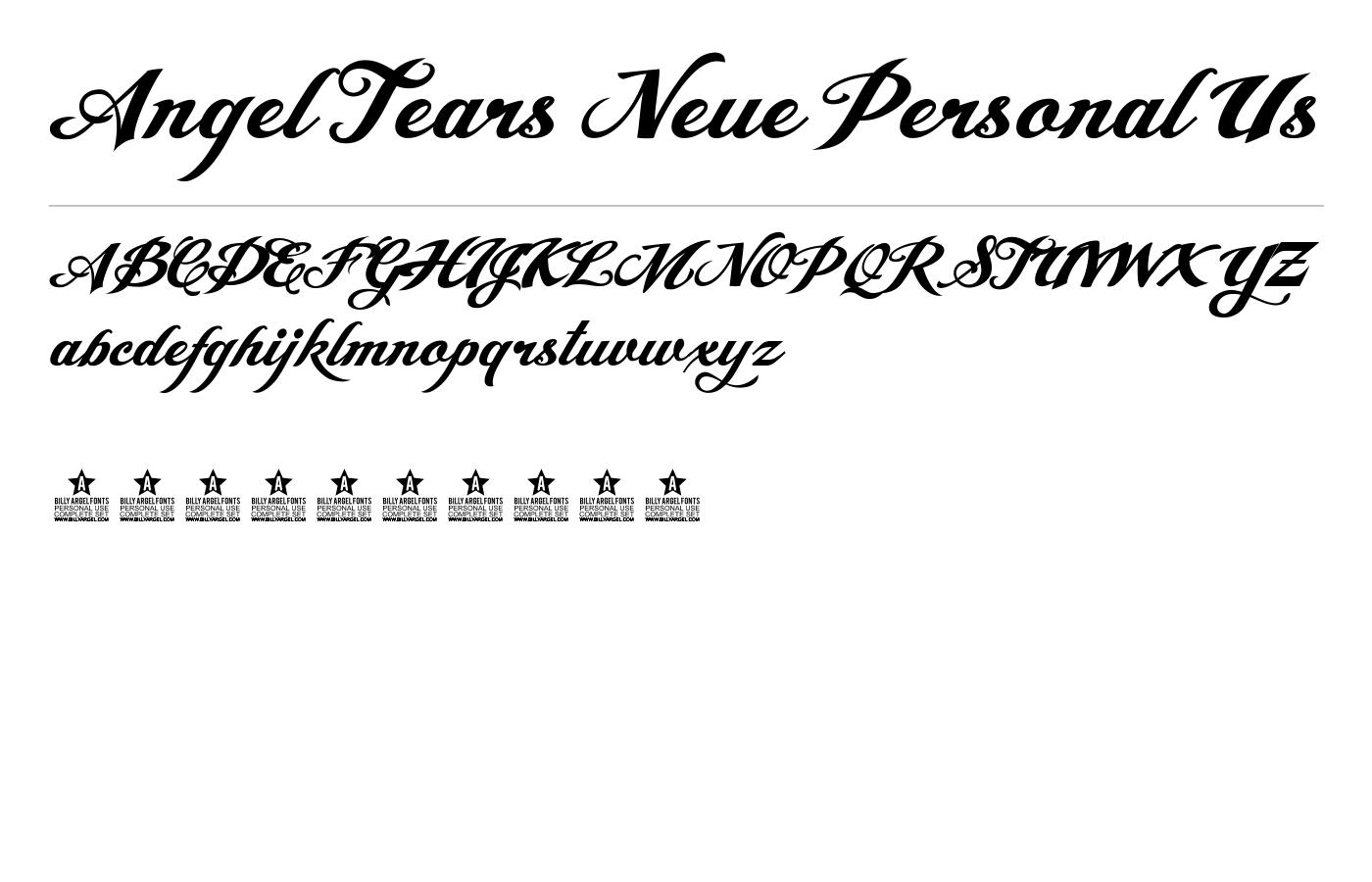
Angel Tears Neue Personal Us is a bold, elegant script font with sweeping, flowing letterforms that mimic classic calligraphy. Its high contrast strokes and intricate swashes lend a sophisticated and dramatic flair, making it ideal for luxury branding, invitations, and headlines where a refined, artistic touch is desired. This font works best in decorative contexts where its detailed style can stand out and create a memorable impression.
Angel Tears Neue Personal Us Font
About Angel Tears Neue Personal Us Font
| Font family | Angel Tears Neue Personal Us Font |